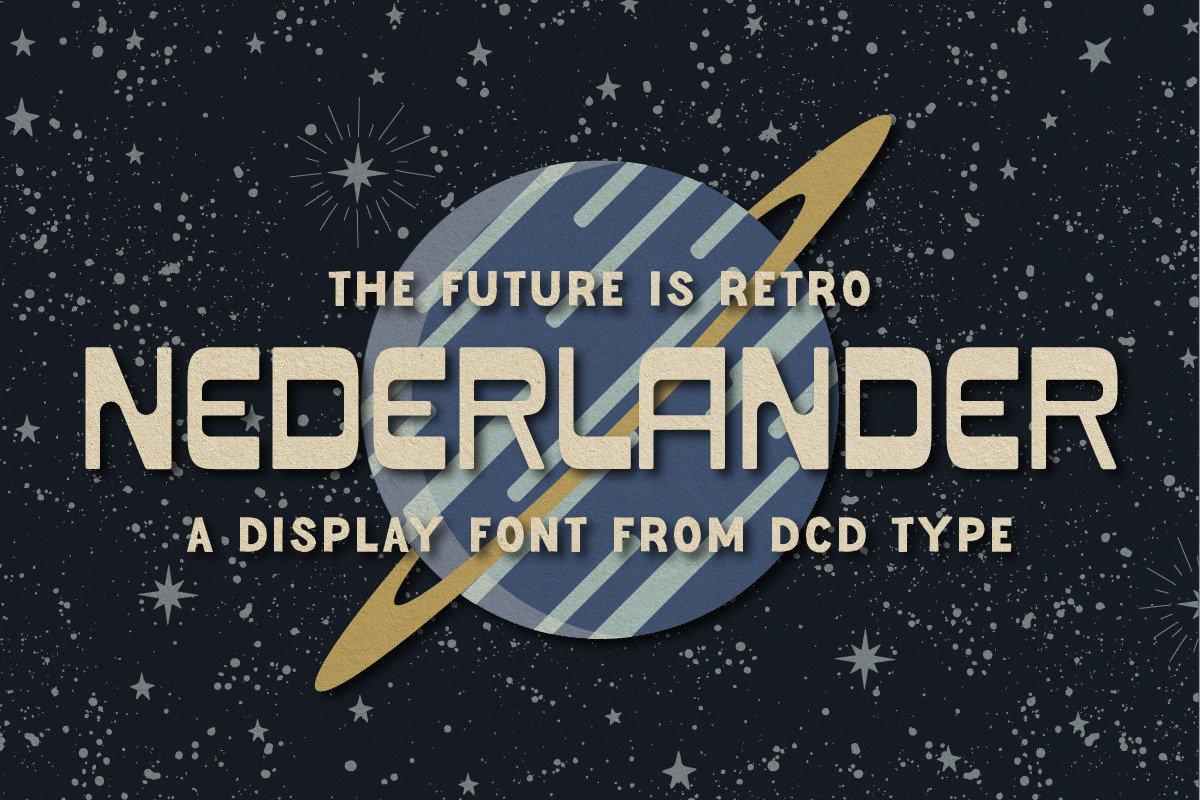
Nederlander Display Font
As the nation’s interest turned to the heavens, so to did the fonts. Based on the western display font Little Neddy, this display font is a throw back to the great American space race.